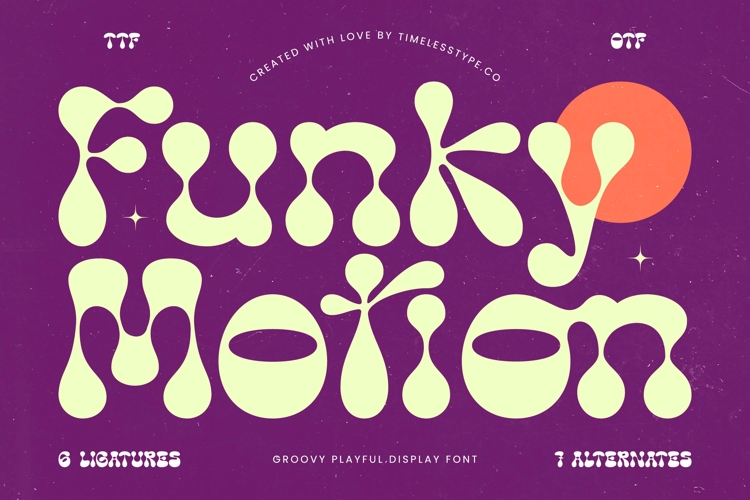
Funky Motion - Groovy Playful Display Font
Funky Motion is a groovy playful display font that radiates retro charm and bold creativity. Its blobby, fluid letterforms and organic curves instantly bring a sense of fun, freedom, and psychedelic energy, making it perfect for projects that aim to stand out with personality and style. Designed with 6 ligatures and 7 alternates, Funky Motion gives designers just the right amount of variety to create expressive and dynamic layouts that feel lively and unique.
This font shines in headline typography, where its bold, fluid shapes capture immediate attention across posters, banners, and editorial layouts. In branding and logo design, Funky Motion communicates playfulness and originality, making it a great choice for music projects, youth culture brands, lifestyle products, and creative studios seeking a retro-modern identity. Its groovy style also makes it highly effective in packaging design, especially for beverages, snacks, artisanal goods, and festival-related products, where bold typography becomes the centerpiece of visual storytelling.
Funky Motion thrives in advertising campaigns, event promotions, and festival posters, where its bubbly alternates and ligatures enhance the design with character and groove. On social media and digital platforms, the font delivers high visibility and trendy retro appeal, ensuring designs resonate with audiences who love bold and quirky aesthetics.
With multilingual support, Funky Motion adapts easily to global projects, making it versatile for international branding and creative campaigns.
Ultimately, Funky Motion is more than just a font—it’s a visual celebration of retro groove and playful creativity. Whether used in headlines, branding, packaging, or editorial design, it guarantees projects full of joy, boldness, and unforgettable psychedelic charm.